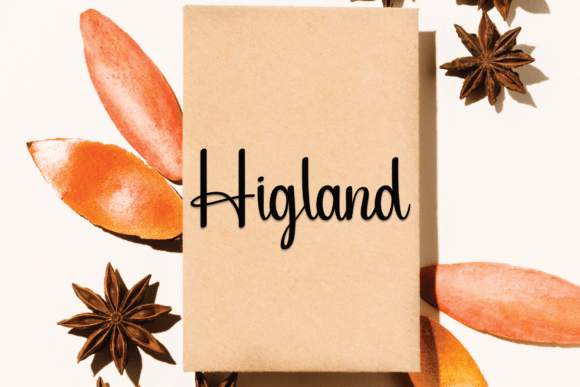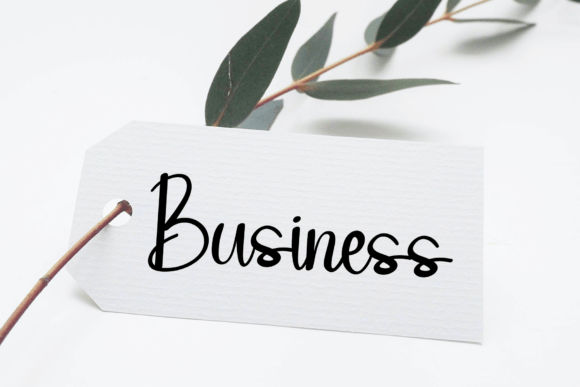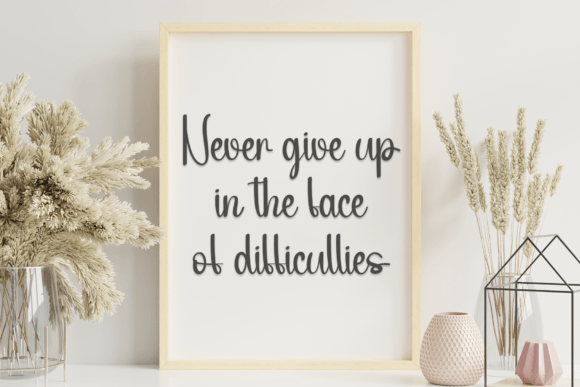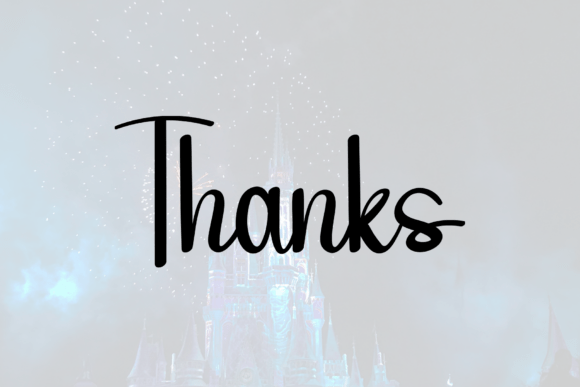
Introducing Christmas Fantasy Font: A Sweet and Beautiful Handwritten Delight
Are you looking for a font that captures the magic and coziness of the holiday season? Look no further than Christmas Fantasy Font! This sweet and beautiful handwritten font is perfect for designers and crafters who want to add a touch of festive charm to their projects. In this article, we’ll dive into the features and benefits of Christmas Fantasy Font, and explore how you can use it to create stunning designs that will leave your audience spellbound.
A Font that Dances with Joy
One of the standout features of Christmas Fantasy Font is its unique and playful character design. The font features characters that dance along the baseline, giving it a lively and carefree feel that’s perfect for holiday-themed designs. Whether you’re creating Christmas cards, gift tags, or social media graphics, Christmas Fantasy Font is sure to add a smile to your audience’s faces.
A Cozy Accent for Any Design Project
Christmas Fantasy Font is more than just a holiday-themed font – it’s a versatile design tool that can be used in a wide range of projects. Whether you’re a designer, crafter, or DIY enthusiast, this font is perfect for adding a cozy accent to your creations. Use it to create:
- Christmas cards and invitations
- Gift tags and wrapping paper
- Social media graphics and holiday-themed posts
- DIY craft projects, such as handmade cards and decorations
- Web graphics and festive-themed website headers
Why Choose Christmas Fantasy Font?
So why choose Christmas Fantasy Font over other holiday-themed fonts? Here are just a few reasons why this font stands out:
- Unique character design: The dancing characters in Christmas Fantasy Font give it a one-of-a-kind look that’s sure to grab attention.
- Handwritten feel: This font has a warm, handwritten feel that’s perfect for creating cozy and inviting designs.
- Versatility: Christmas Fantasy Font can be used in a wide range of projects, from digital designs to handmade crafts.
Tips for Using Christmas Fantasy Font
Here are a few tips for getting the most out of Christmas Fantasy Font:
- Pair it with complementary fonts: Christmas Fantasy Font looks great when paired with simple, sans-serif fonts like Arial or Helvetica.
- Experiment with colors: Try using Christmas Fantasy Font in different colors, such as bright reds and greens, to create a festive look.
- Add embellishments: Consider adding embellishments, such as holly leaves or snowflakes, to give your designs an extra touch of holiday cheer.
Christmas Fantasy Font is a sweet and beautiful handwritten font that’s perfect for designers and crafters who want to add a touch of festive charm to their projects. With its unique character design, handwritten feel, and versatility, this font is sure to become a go-to in your design toolkit. So why wait? Download Christmas Fantasy Font today and start creating stunning holiday designs that will leave your audience spellbound!